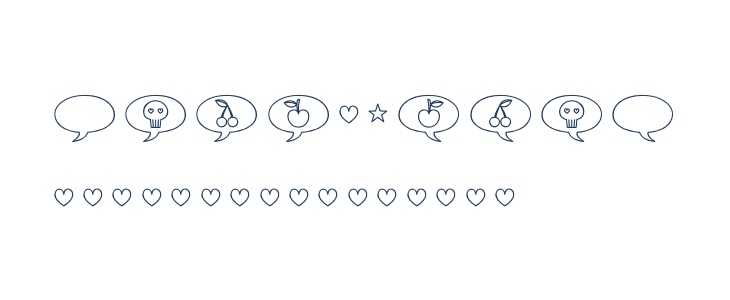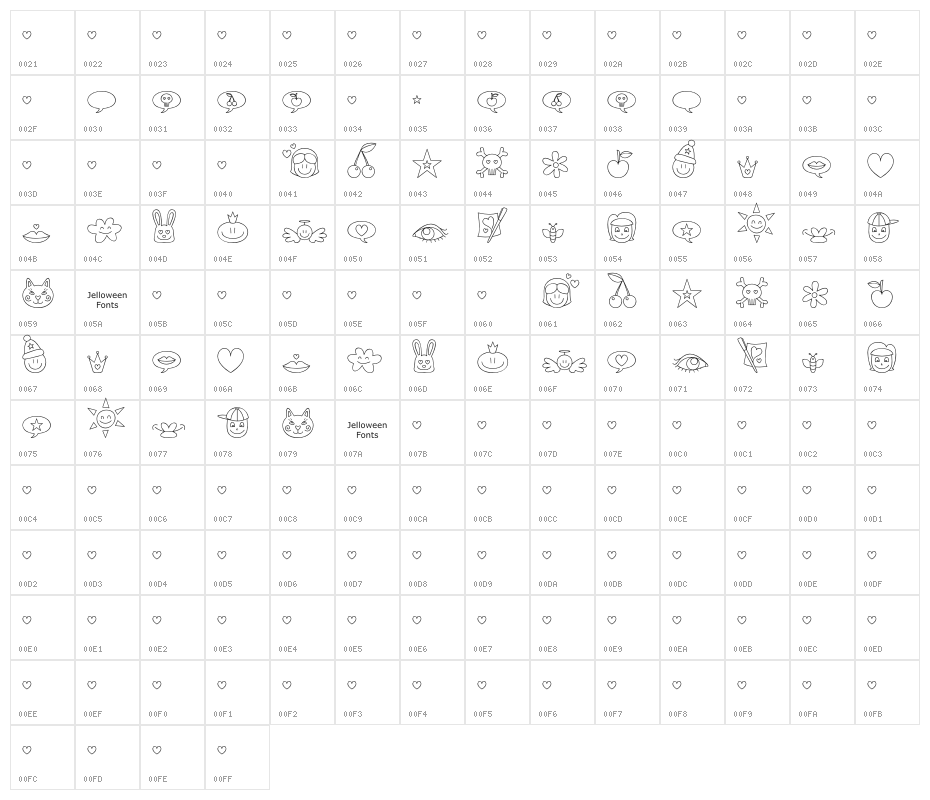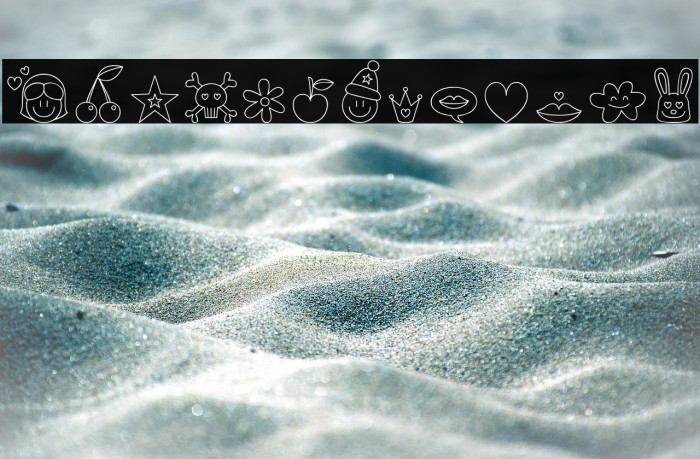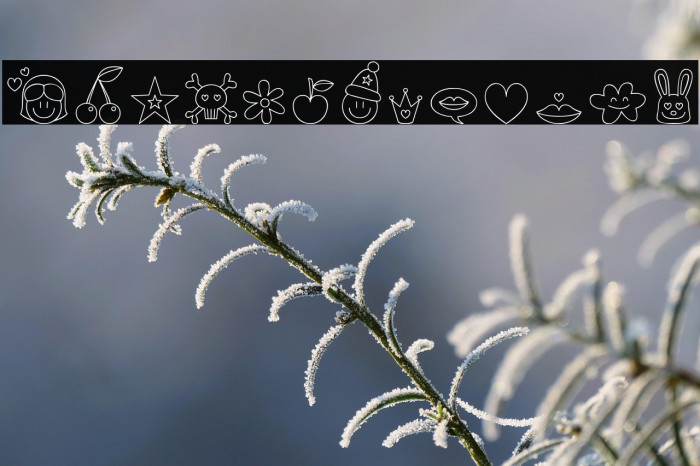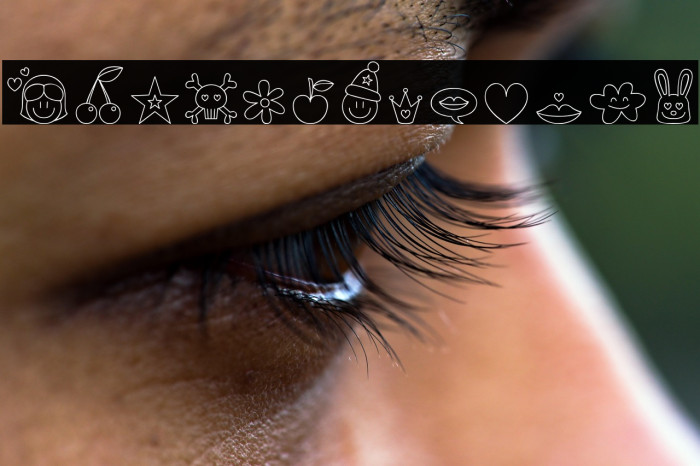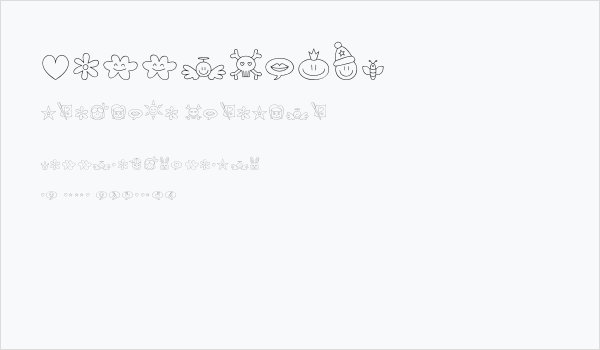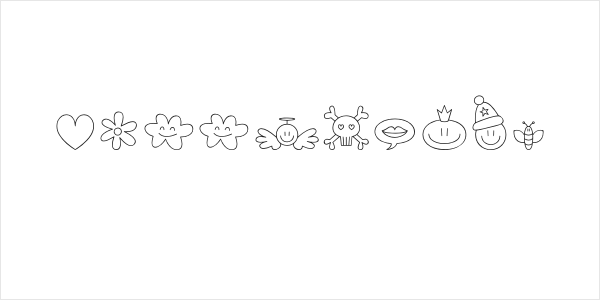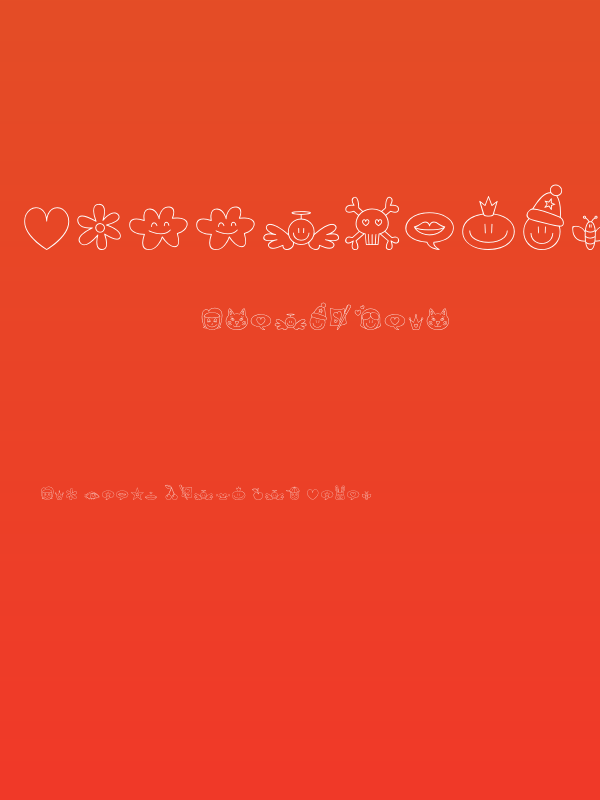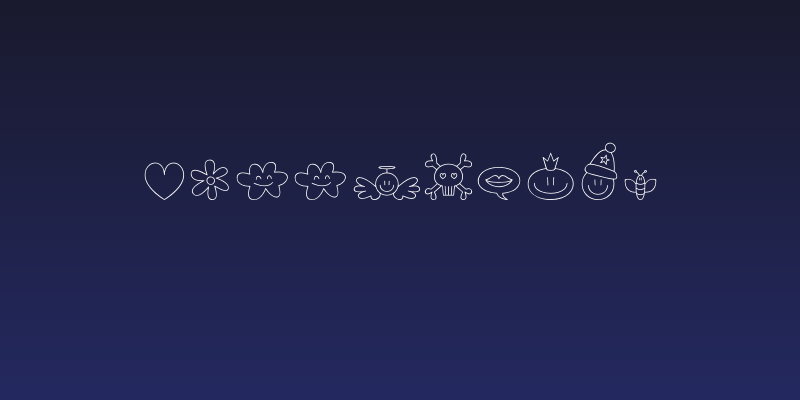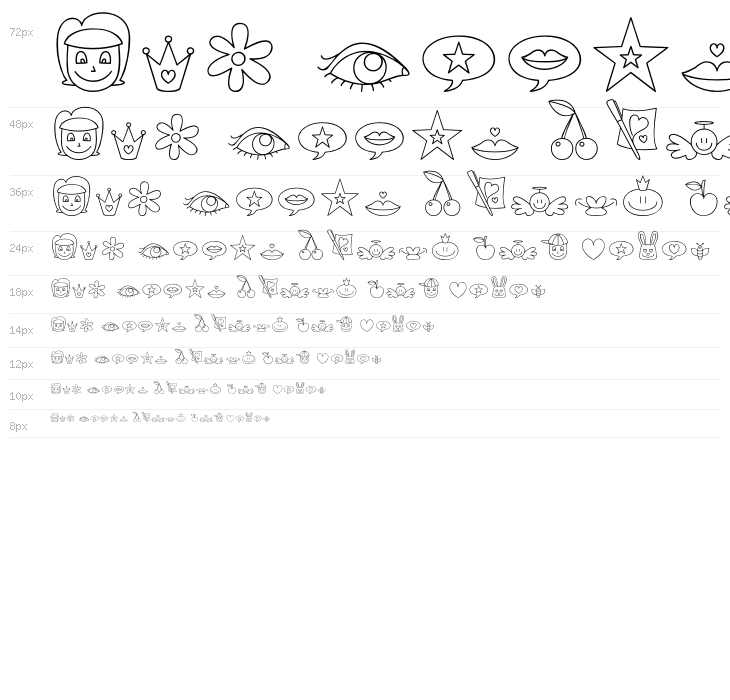
Jellodings Font
Jellodings Description
This is a playful and whimsical dingbat font featuring a variety of charming and quirky icons. The characters include a mix of cute faces, stars, hearts, flowers, and other playful symbols. Each icon is outlined with a consistent line weight, giving the font a cohesive and uniform appearance. The style is light-hearted and fun, making it ideal for projects that require a touch of whimsy and creativity. The icons are well-spaced, ensuring clarity and readability, even at smaller sizes. This font is perfect for adding a decorative element to designs, enhancing visual interest with its unique and engaging symbols.
| Use Case | Logos, Decorative elements, Invitations |
| Proposed Projects | Ideal for children's books, greeting cards, party invitations, and playful branding. |